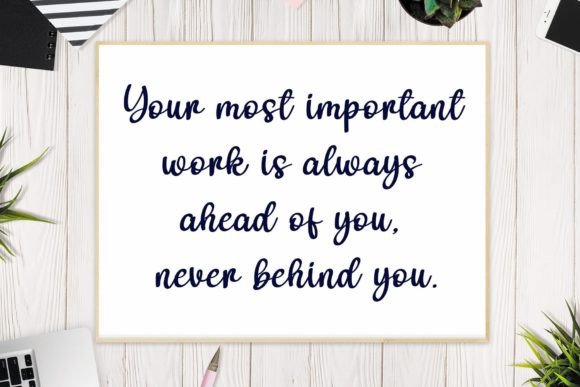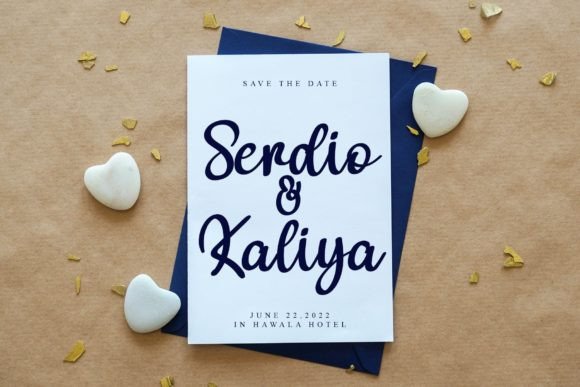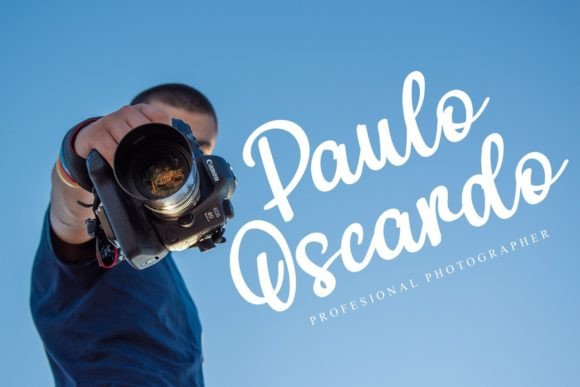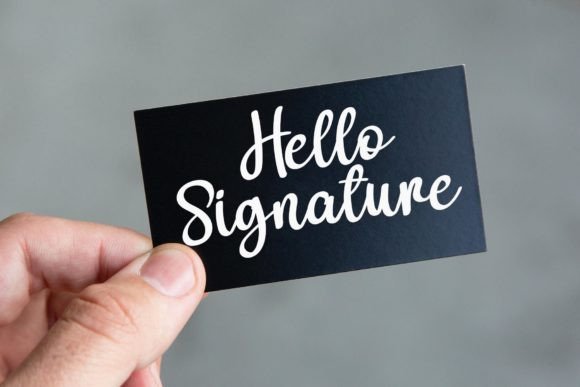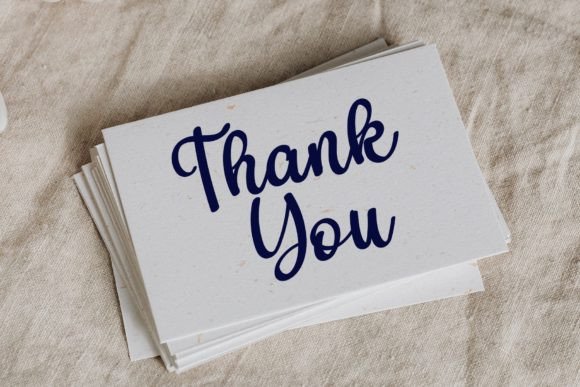
Katerina Font Font
About Katerina Font
“Kinetic” stands out as a delicate, elegant, and gracefully flowing handwritten font. Its beauty lies in the well-balanced characters that bring a touch of sophistication to any design it graces. This versatile font is a perfect match for a diverse range of creative projects.
The delicacy of Kinetic is evident in its subtle yet expressive strokes. Each character is carefully crafted to achieve a harmonious balance, creating a font that exudes refinement. Whether used for formal invitations, branding, or other design applications, Kinetic adds a layer of elegance that elevates the visual aesthetic.
The elegance of Kinetic extends beyond its aesthetic appeal. The flowing nature of the font imparts a sense of fluidity and charm, making it ideal for conveying a personalized touch in various projects. From wedding invitations to thank-you cards, Kinetic brings a romantic and intimate quality to the written word, enhancing the overall sentiment.
The versatility of Kinetic is a notable feature that sets it apart. It effortlessly adapts to different design styles and themes, making it a valuable tool for designers seeking a font that can seamlessly integrate with a wide range of visual concepts. Whether you’re working on a modern and sleek design or a more traditional and classic project, Kinetic maintains its elegance and readability.
In the world of typography, Kinetic stands as a testament to the beauty of handwritten fonts. Its flowing characters create a dynamic and engaging visual experience, capturing the attention of the audience. The font’s versatility extends to various design applications, including logos, headlines, and other creative projects where a touch of elegance is desired.
In summary, Kinetic is more than just a font; it’s a design asset that brings delicacy, elegance, and flow to your creative endeavors. Its well-balanced characters make it a versatile choice for a wide array of projects, ensuring that your designs exude sophistication and style. Whether you’re crafting invitations, branding, or other visual elements, let Kinetic add a touch of grace to your creations.